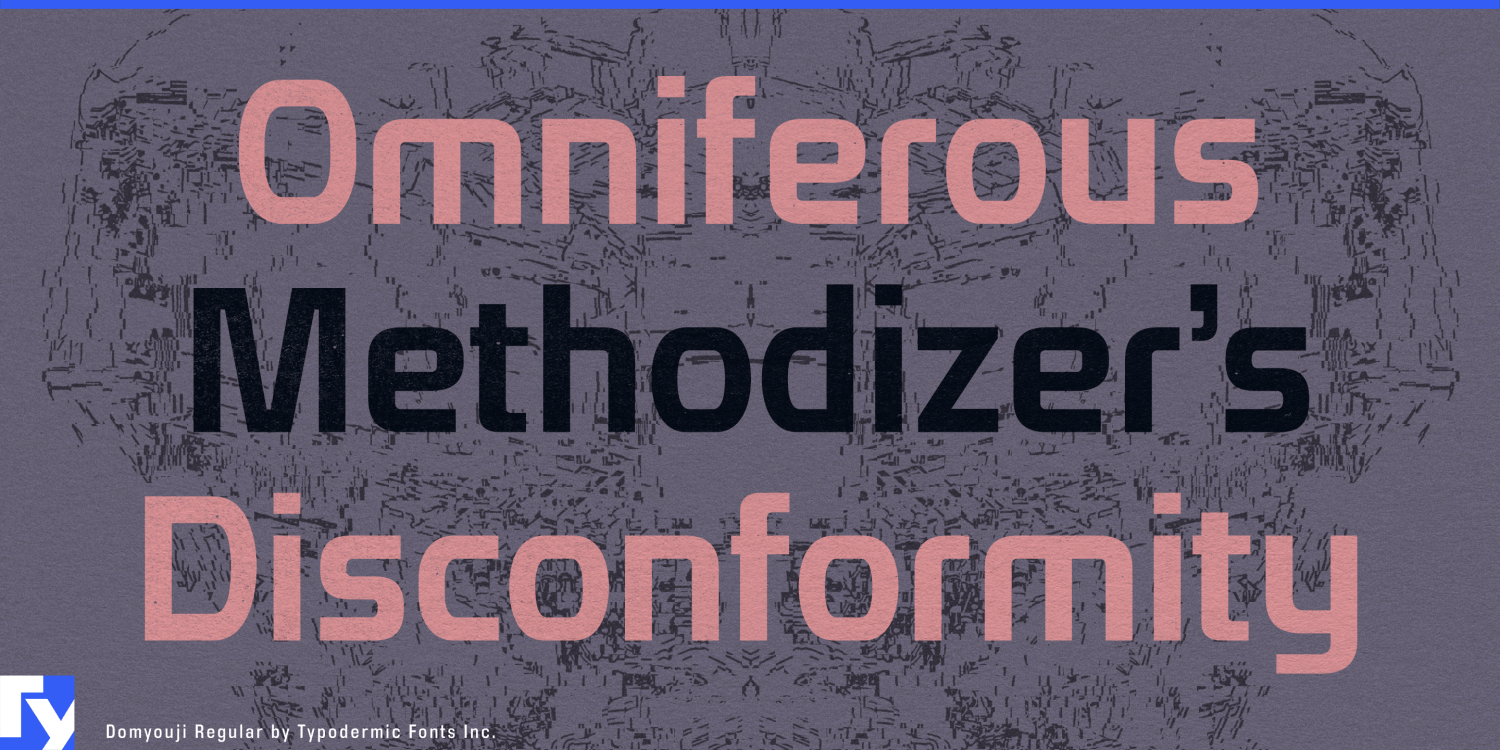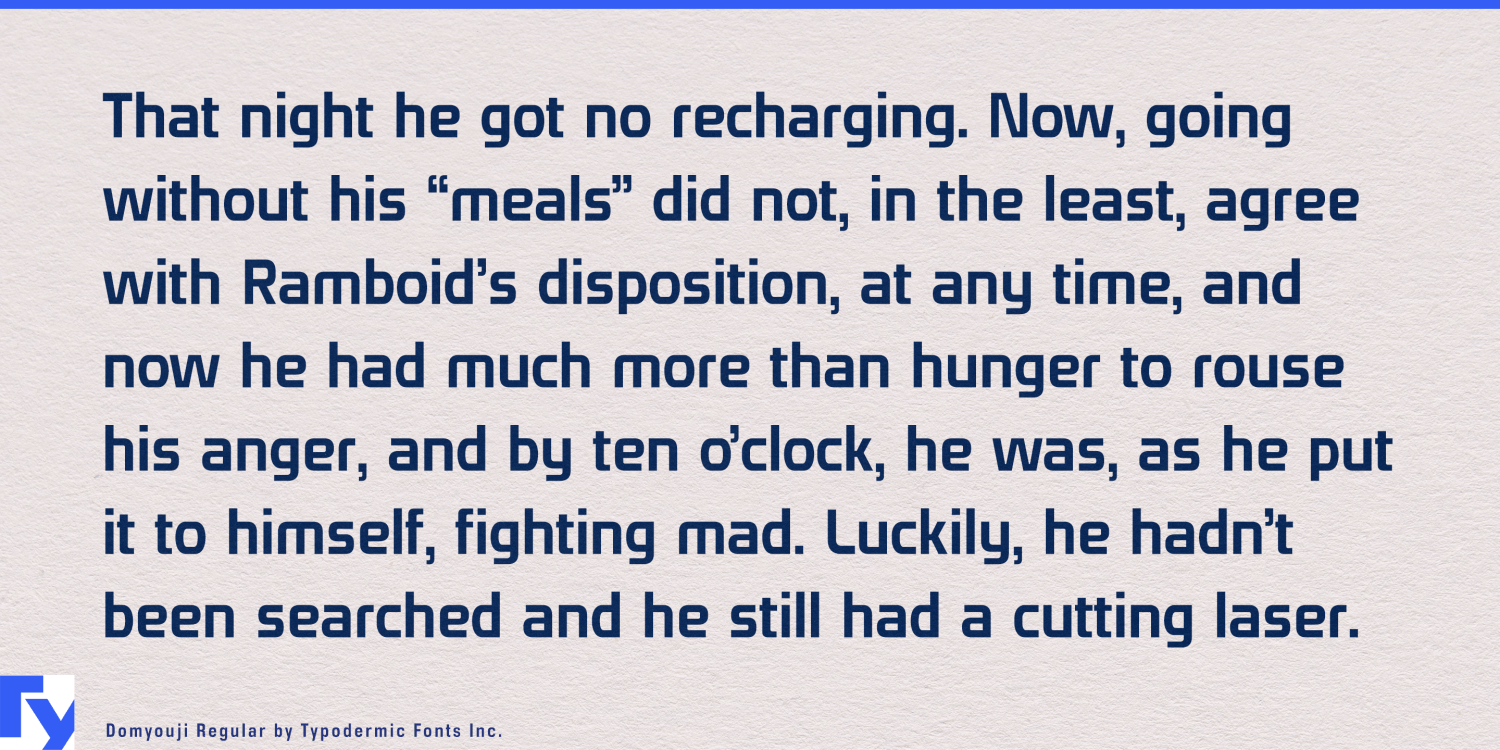
Domyouji: The typeface that fuses ’70s industrial edge with modern precision. This Typodermic Fonts creation is a time-traveling chameleon, perfectly complementing Korataki with its blend of soft curves and strong corners. Four distinct styles—Regular,…